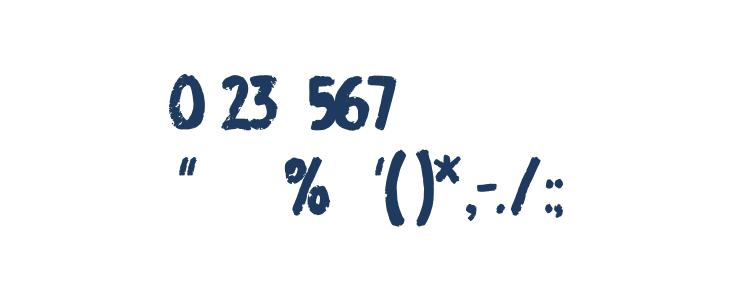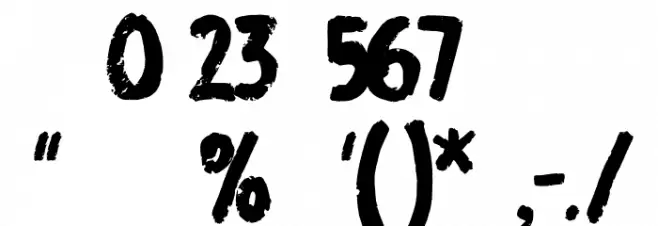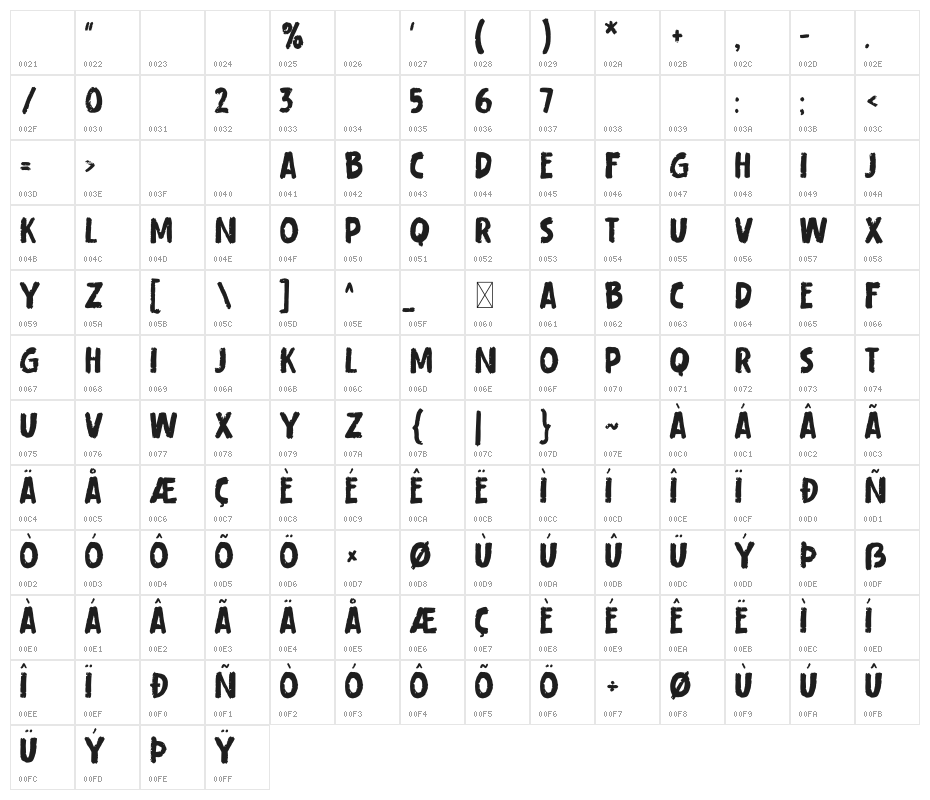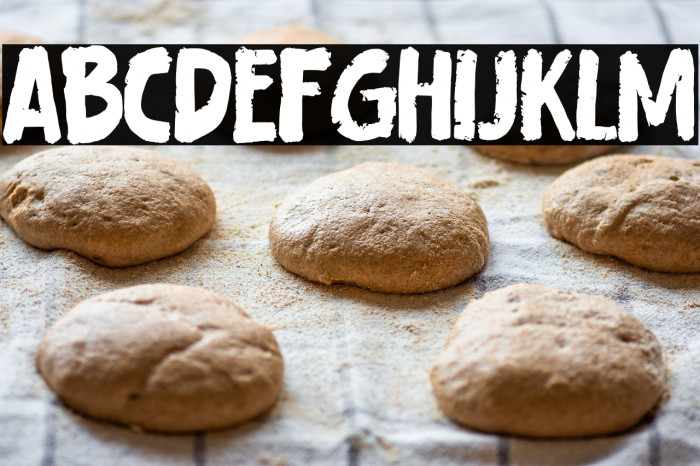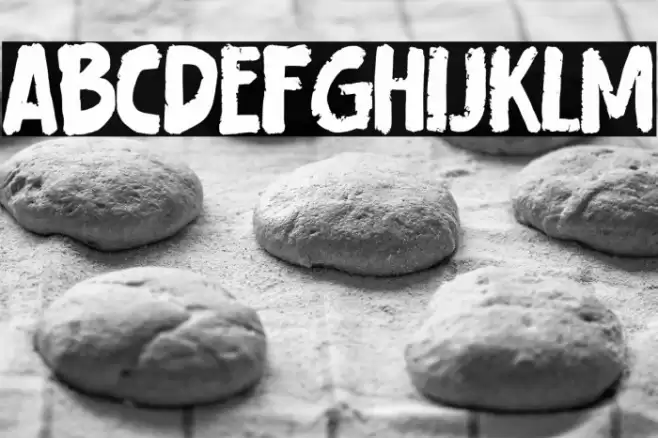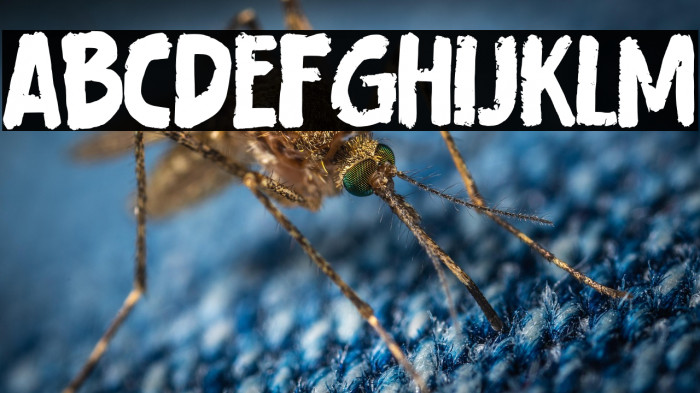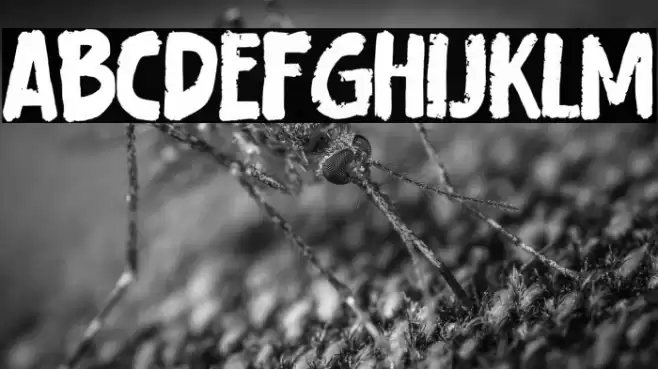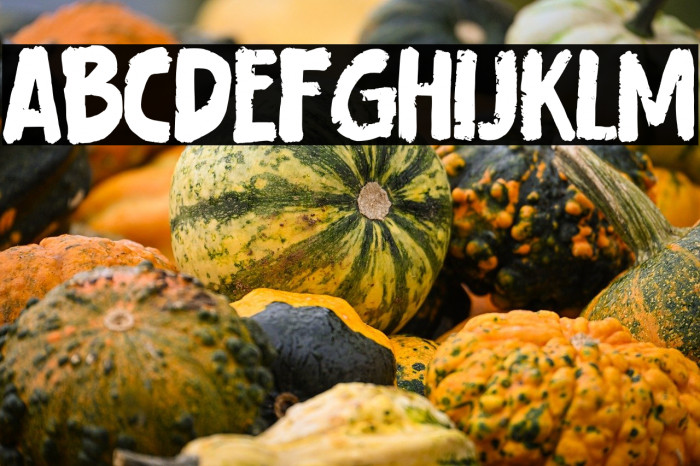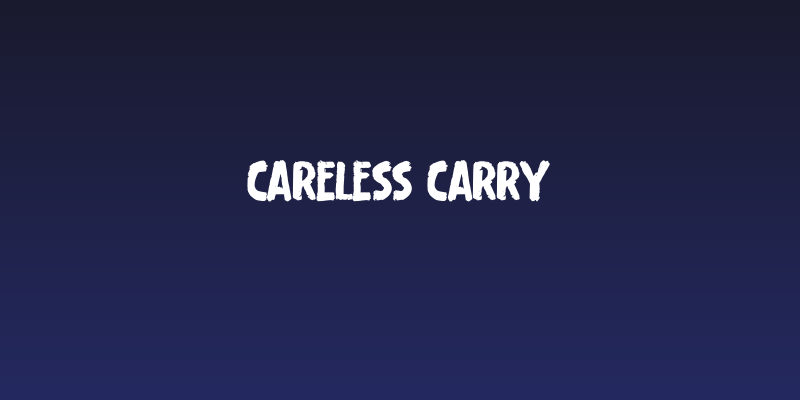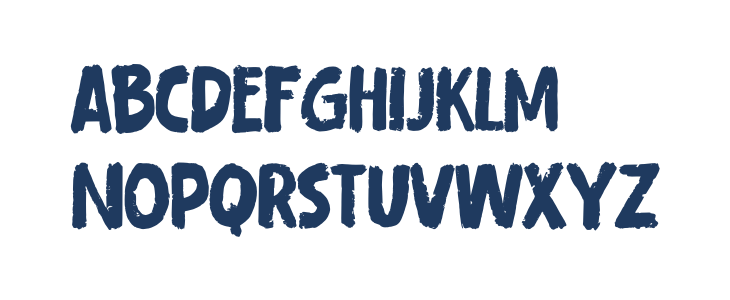
Careless Carry Font
Careless Carry Description
This font features a bold, hand-painted style with a rough, textured appearance that gives it a dynamic and energetic feel. The characters are uppercase and lowercase, with numbers and a selection of special characters. The strokes are thick and uneven, creating a sense of movement and spontaneity. This font is ideal for projects that require a bold and artistic touch, such as posters, album covers, or creative branding. The irregular edges and brush-like strokes add a unique, handcrafted quality that stands out in any design.
| Proposed Projects | Ideal for posters, album covers, creative branding, and artistic projects. |